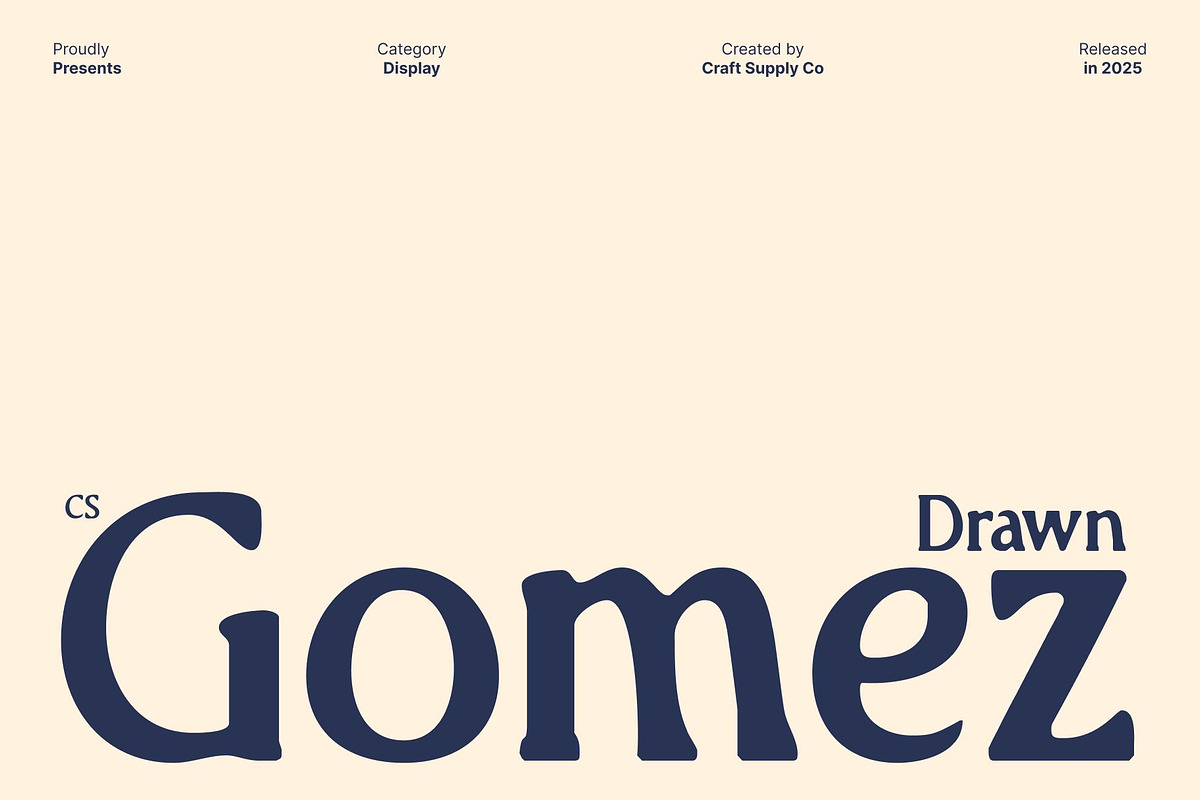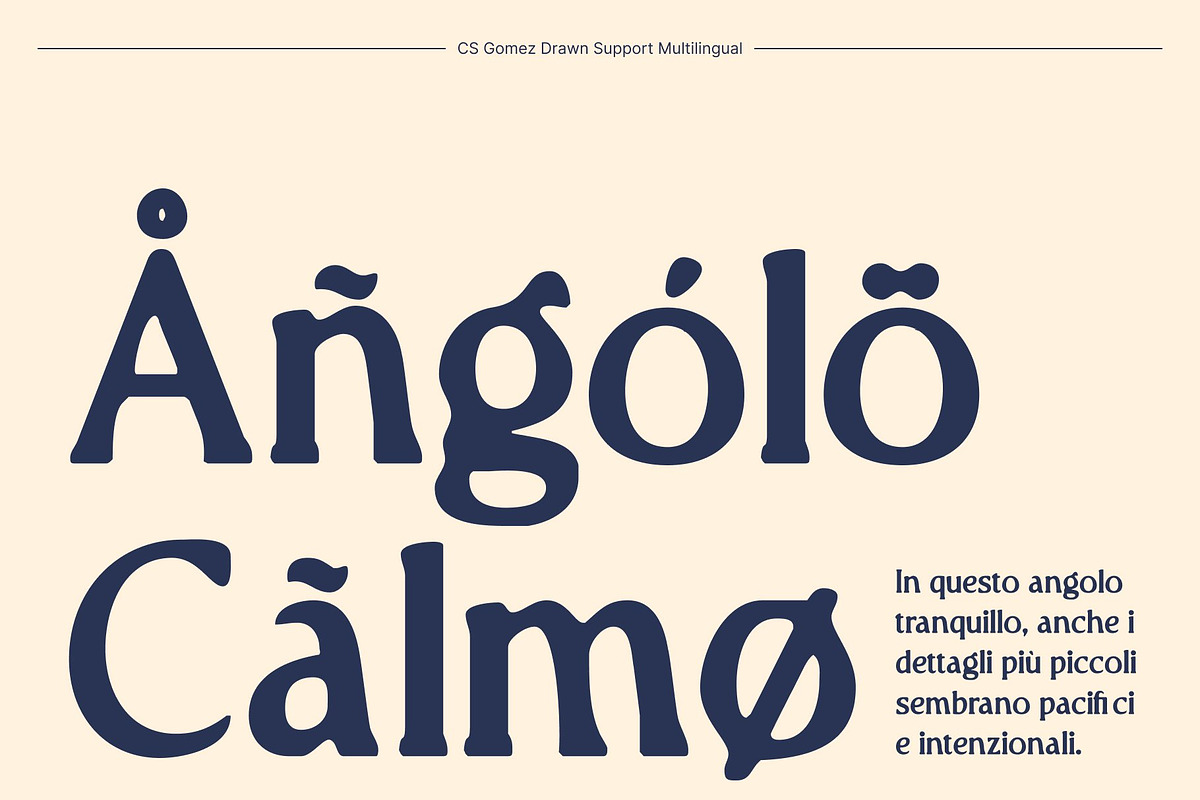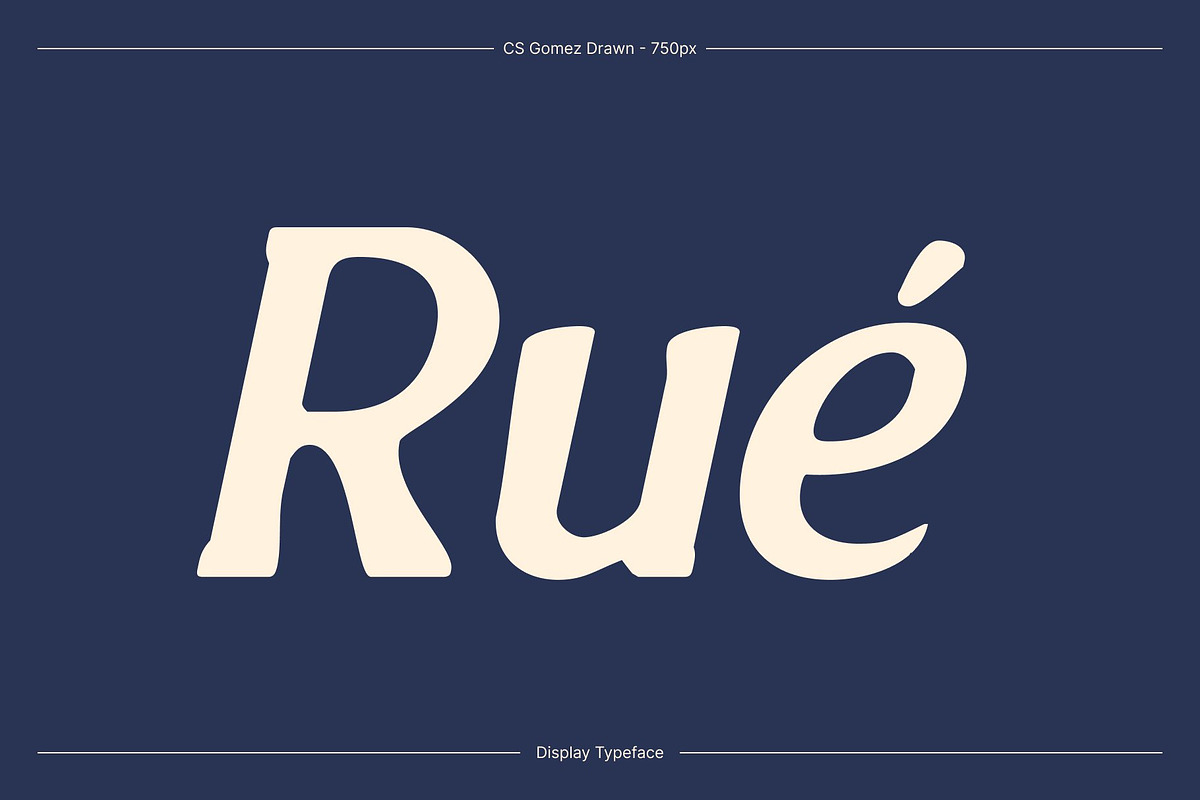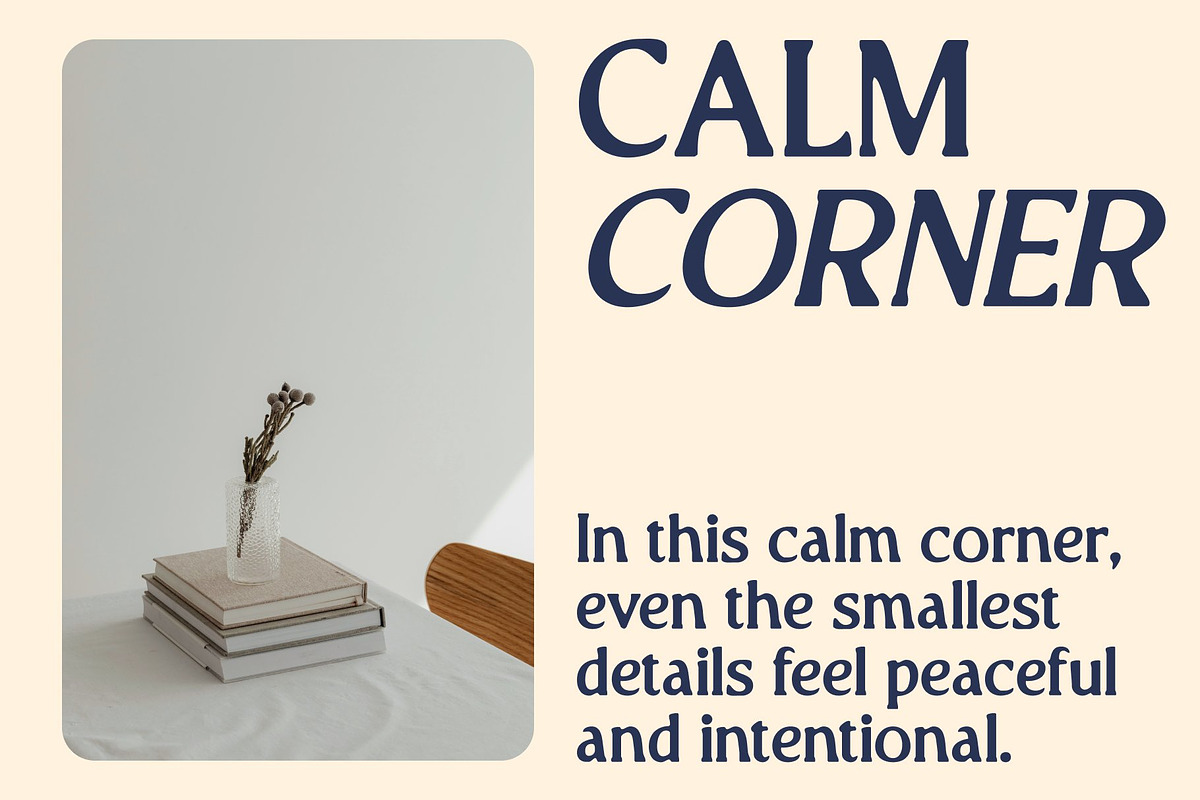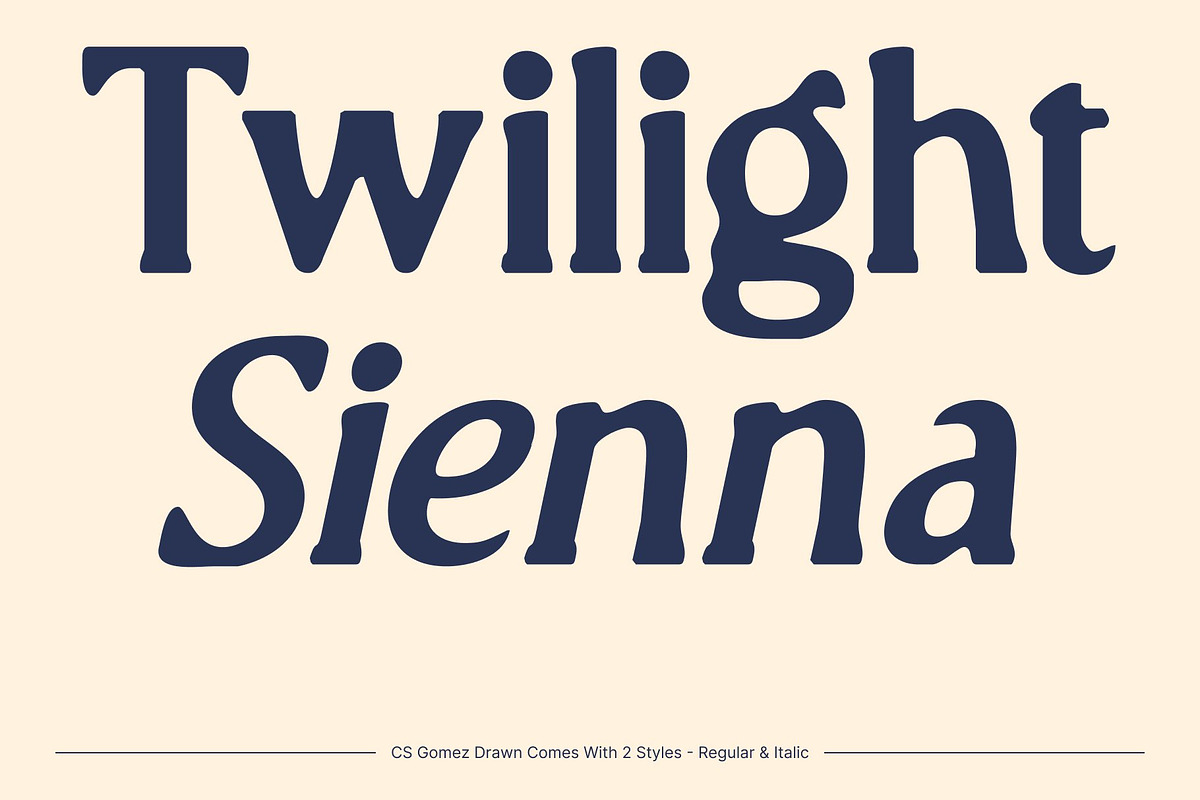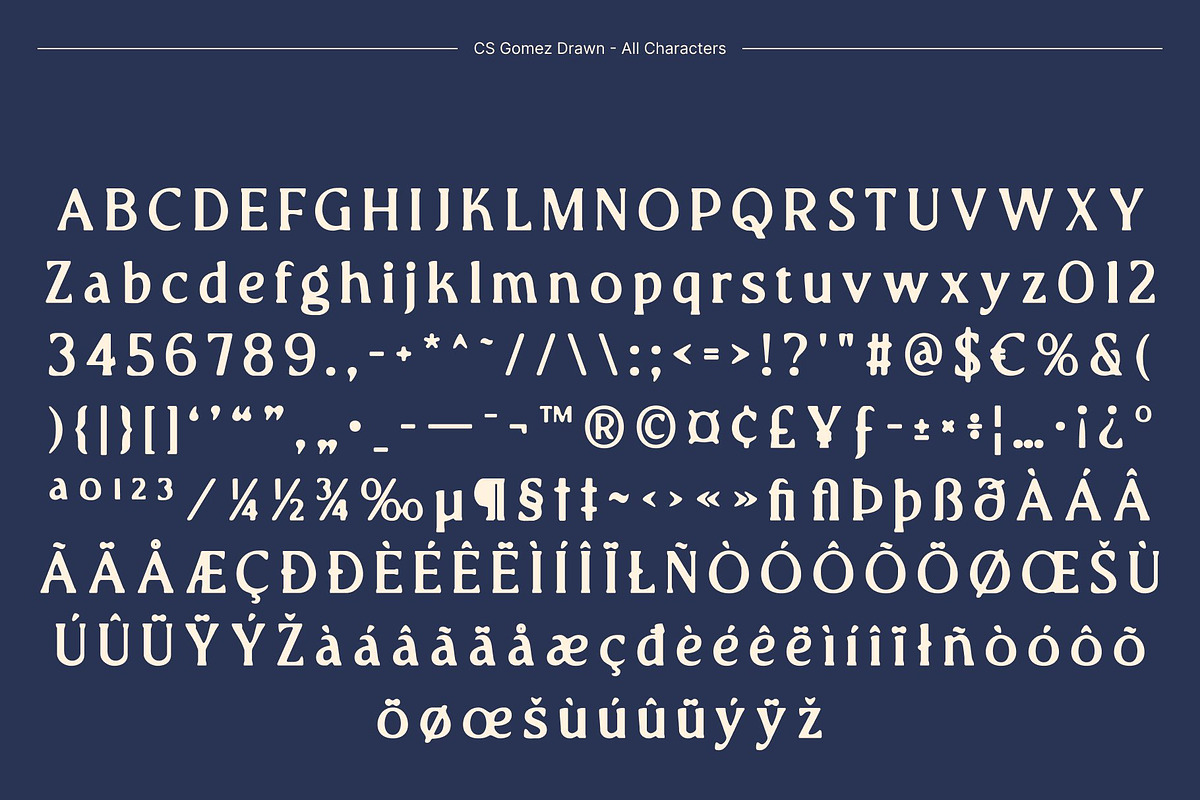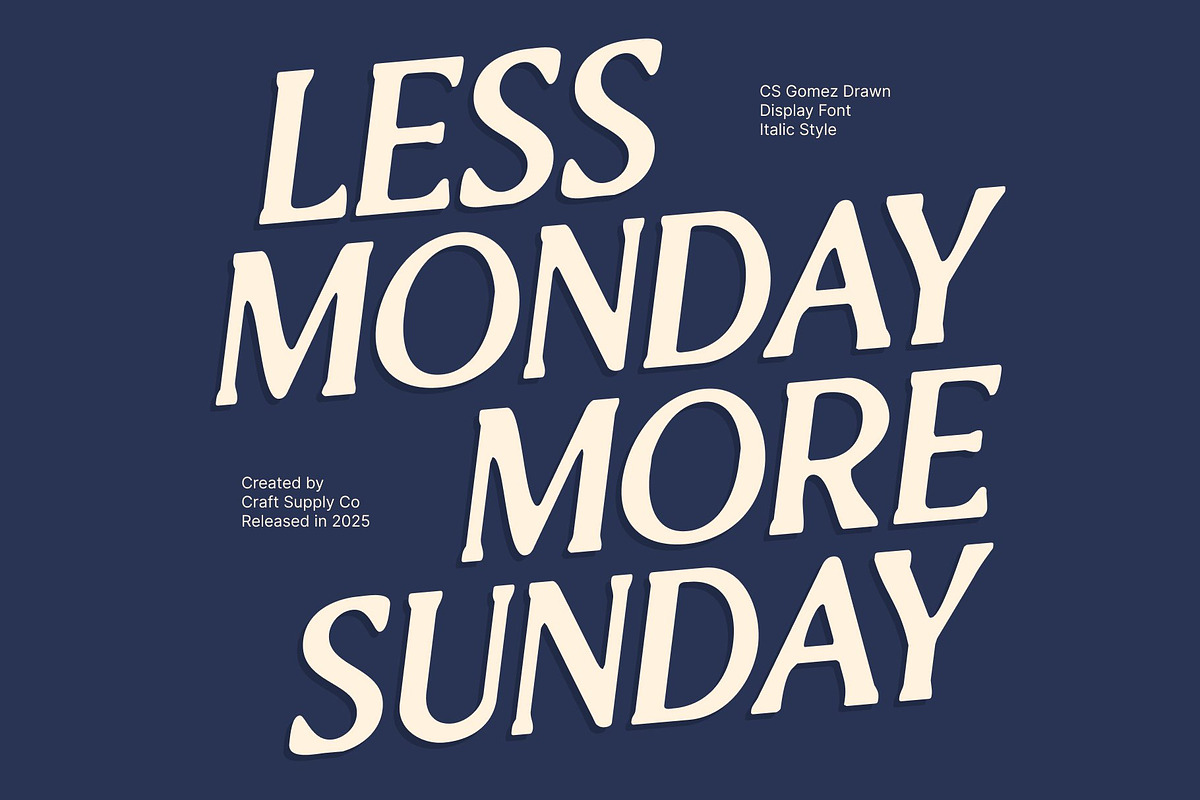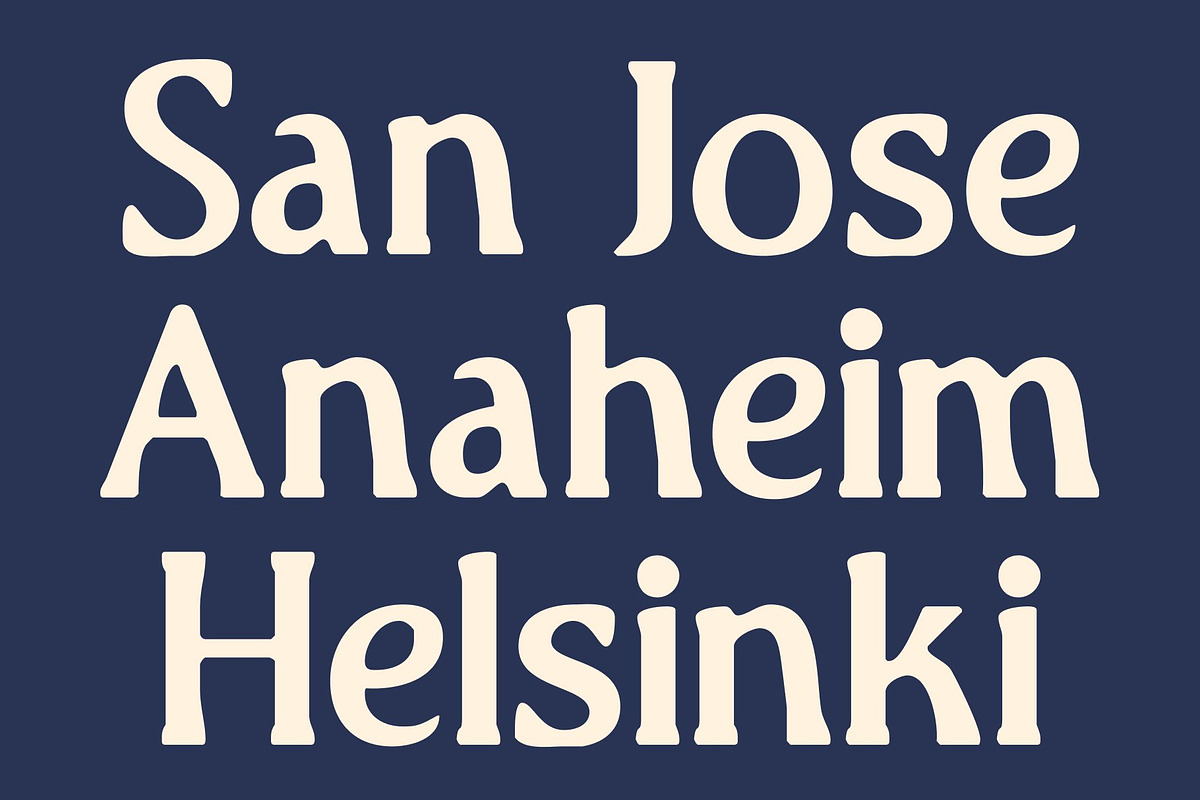
CS Gomez Drawn
CS Gomez Drawn – Modern Precision with Elegant Confidence
Contemporary Serif with Sharp Character This is a modern serif font defined by sharp angles and refined proportions, delivering a strong balance between elegance and professionalism. The drawn effect adds subtle texture and handcrafted nuance, giving each letter a unique character while preserving its clean, modern structure. This blend results in a typeface that feels confident, sophisticated, and visually distinctive.
Sleek Geometry with Hand-Drawn Texture Crisp angular details form the backbone of this font, expressing precision and authority, while the drawn finish softens the geometry with organic warmth. This combination creates a refined yet expressive rhythm sharp and controlled, but never cold. The textured strokes enhance depth and personality without compromising clarity or legibility.
Ideal for Luxury and Professional Branding Designed for luxury brands, editorial layouts, and corporate identities, this font elevates visual communication with confidence and style. It performs beautifully in logos, packaging, magazine covers, and premium advertising, where a polished look with subtle artistic distinction is essential.
Elegant Craftsmanship with a Modern Edge More than just a modern serif, this font represents thoughtful design and contemporary craftsmanship. Its fusion of sharp serif precision and natural drawn texture makes it an excellent choice for designers who seek elegance, strength, and timeless appeal enriched by a unique, human touch.